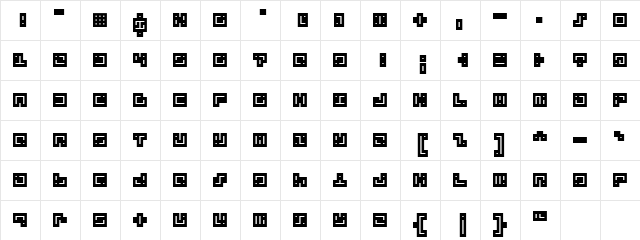
D3 FuturismOutline Regular
Design Context for D3 FuturismOutline Typeface
D3 FuturismOutline has a distinctly futuristic character, with geometric precision and clean angles that feel at home in technology, gaming, and sci-fi contexts.
Pro Tip: Try D3 FuturismOutline with generous letter-spacing in UI labels and navigation — the geometric forms benefit from room to breathe.